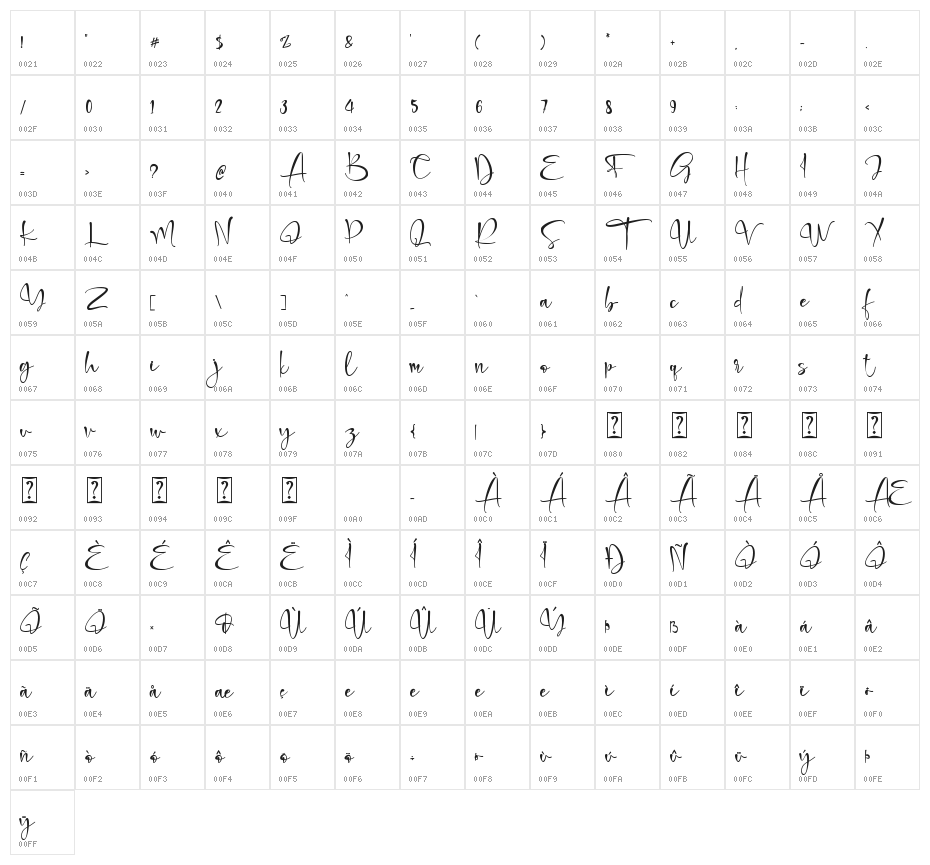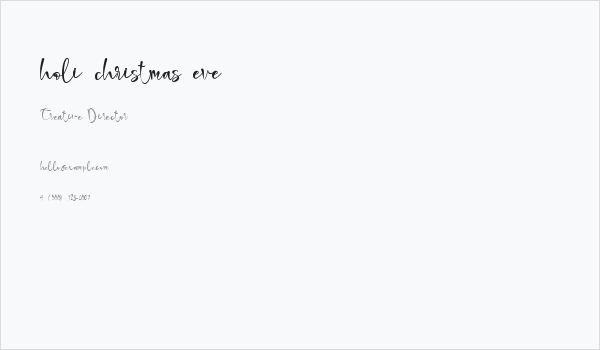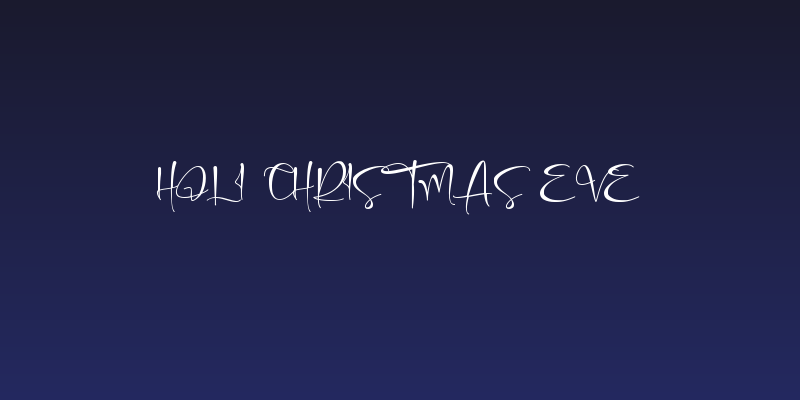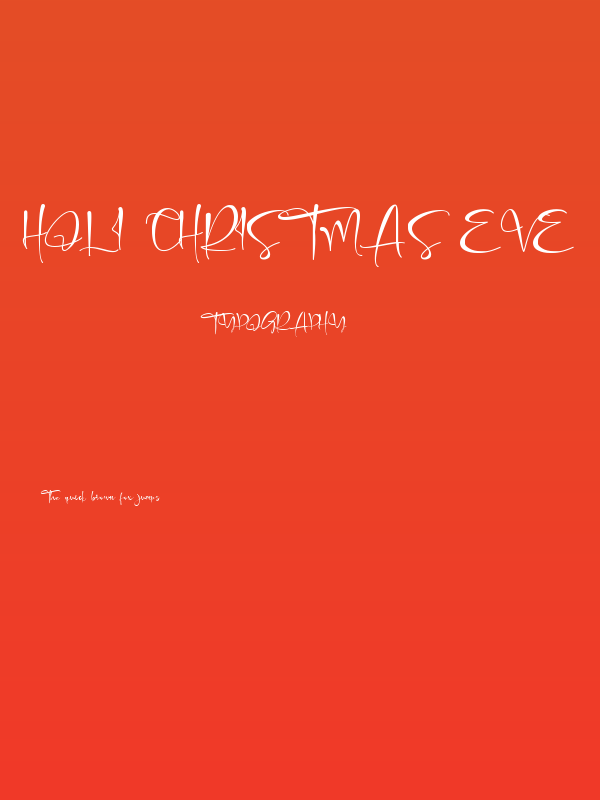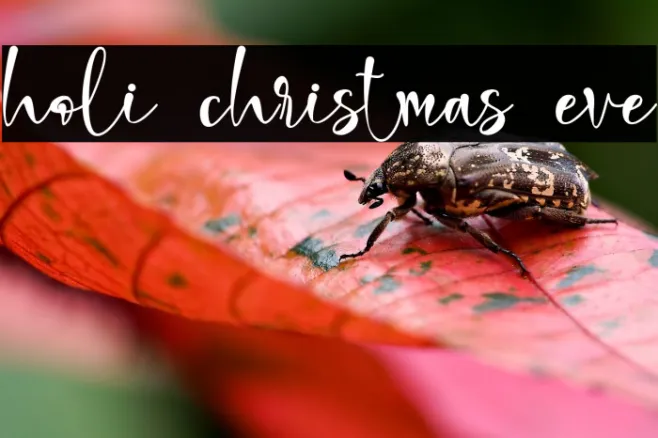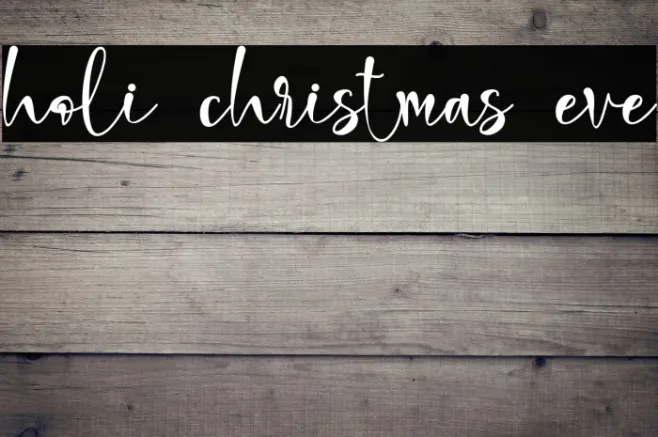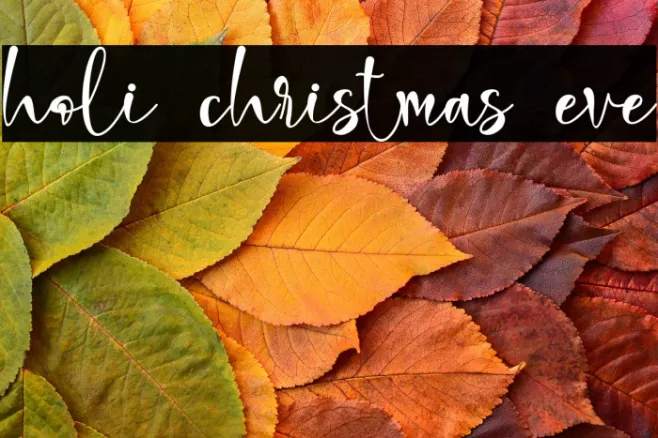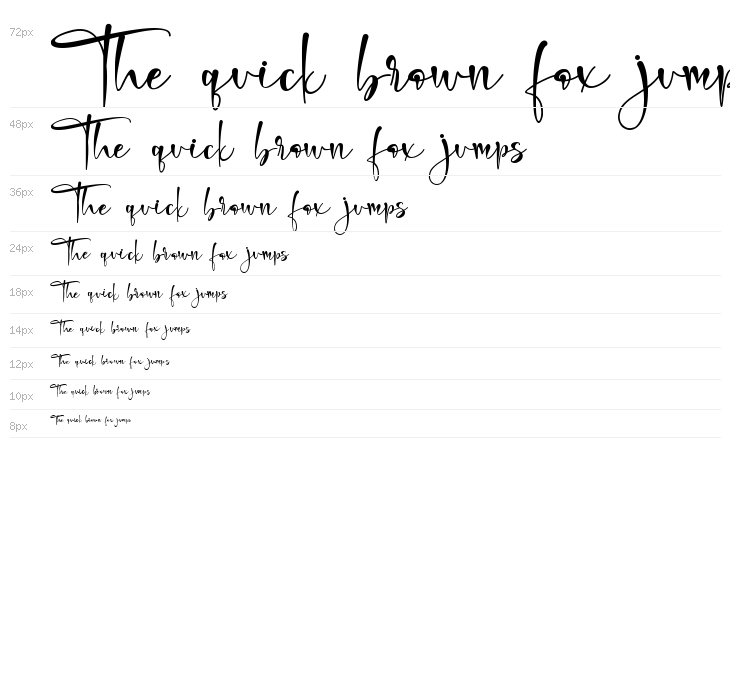
holi christmas eve Font
holi christmas eve Description
This font features a whimsical and flowing script style, characterized by its elegant and fluid letterforms. The uppercase letters exhibit a playful yet sophisticated flair, with exaggerated loops and swirls that add a touch of charm. The lowercase letters maintain a consistent style, with smooth curves and a slightly informal appearance. The numerals are clear and legible, matching the overall aesthetic of the font. Special characters are designed with the same attention to detail, ensuring a cohesive look across all glyphs. This font is perfect for projects that require a personal and artistic touch, such as invitations, greeting cards, and decorative signage.
| Proposed Projects | Ideal for invitations, greeting cards, decorative signage, and artistic projects. |